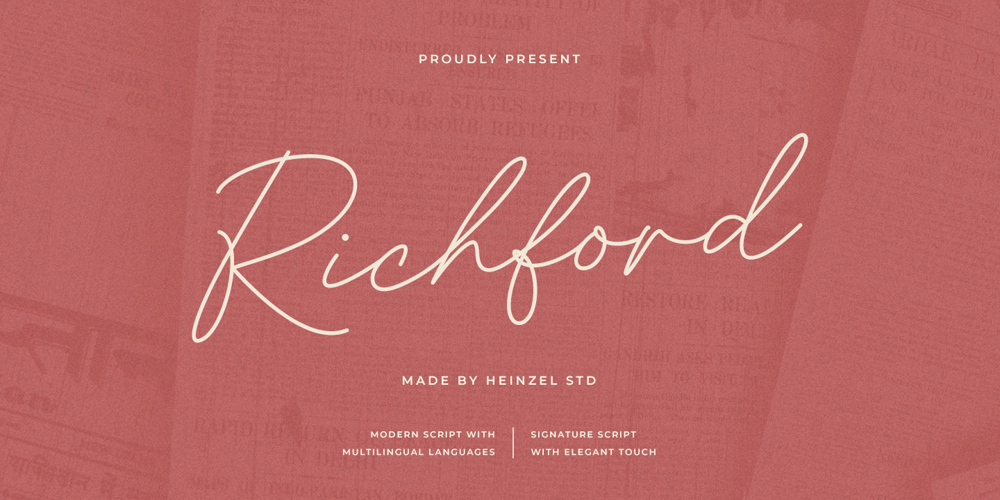
Richford Font Family was designed by Nofi Sofyan Hadi and published by Heinzel Std. Richford contains 1 styles and family package options. Richford is a signature script font, described by an elegant and modern touch, perfect for your favorite projects. It looks stunning on wedding invitations, thank you cards, quotes, greeting cards, logos, business cards, social media, magazines, branding, marketing materials, and every other design which needs a handwritten touch. Fall in love with its incredibly distinct and timeless style and use it to create spectacular designs!Richford Features: Regular Version Uppercase and Lowercase Numerical and Punctuation Alternates and Ligatures PUA Encoded Multilingual Language Easy To Use